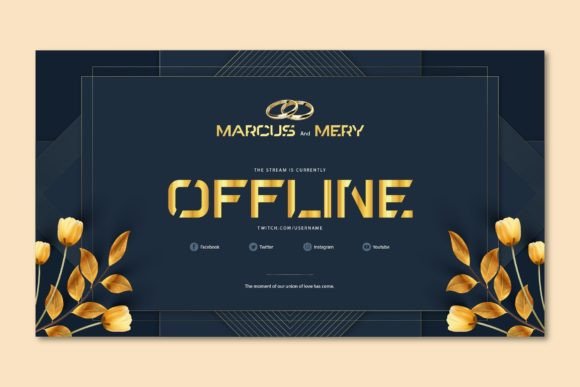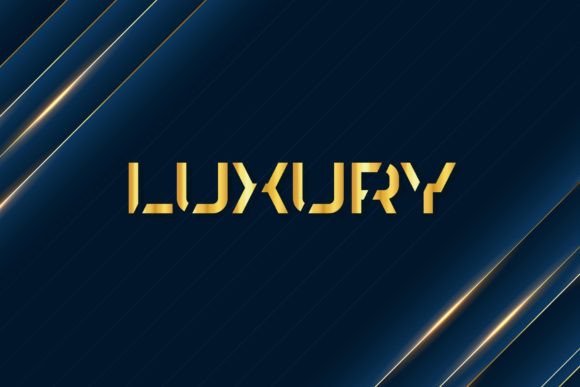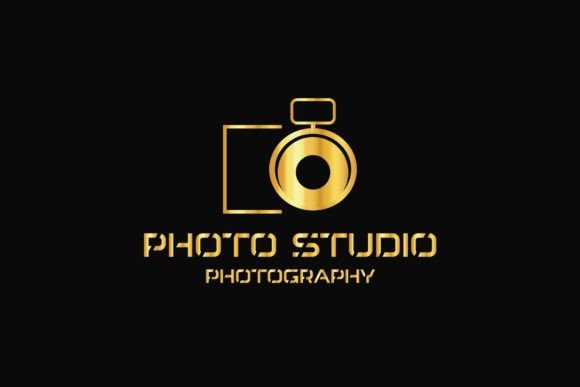
Unlock the Luxurious Look of Your Creative Projects with Smart Gold Font
Remember the excitement of scrolling through your social media feed and stumbling upon a stunning film poster that instantly grabs your attention? That’s the power of a well-designed font in action. For designers, finding the perfect font can be the key to elevating their creative projects from ordinary to extraordinary. That’s where the Smart Gold Font comes in – a high-quality, modern gold font that’s sure to add a touch of luxury to any design.
With its sleek and sophisticated design, the Smart Gold Font is the perfect addition to any creative project. Whether you’re working on a film poster, logo design, or even a block letter project, this beautiful font is sure to make your work stand out. And the best part? It’s a color font, compatible with popular design software like PhotoShop, Illustrator, and Inkscape, making it easy to integrate into your workflow.
Key Features of Smart Gold Font
- High-quality design for creative projects, ideal for logos, branding, and marketing materials.
- Comes with a transparent background, allowing for seamless integration into any design.
- Includes 6 styles, ranging from light to bold, to suit various design needs.
- Designed at a high resolution of 300 DPI, ensuring crisp and clear results when scaled up or down.
- Perfect for use in digital and print media, including websites, social media, business cards, and brochures.
Honest Review: Smart Gold Font
I recently had the chance to work with the Smart Gold Font for a creative project, and I was quite impressed. This font is definitely a great addition to any design resource library.
- High-quality design: The Smart Gold Font is crisp, clean, and has a beautiful shine to it.
- Transparent background: The transparent background of the font makes it easy to use in various design projects.
- ⚠️ Limited font sizes: While the font is great for small to medium-sized text, it can get a bit pixelated when used for larger font sizes.
- ⚠️ Not suitable for bold text: The font’s design makes it difficult to use for bold or italic text, which can limit its versatility.
Overall, I was impressed with the Smart Gold Font and would definitely recommend it for designers working on a creative project that requires a high-quality, stylish font. Just be aware of its limitations and use it accordingly.
How to Use Smart Gold Font
The Smart Gold Font is a high-quality design resource that can elevate your creative project. With its elegant and sophisticated style, it’s perfect for various design needs.
Tips for Getting the Most Out of Smart Gold Font
Use the Smart Gold Font in combination with other design elements to create a cohesive look. Experiment with different font sizes, colors, and styles to find the perfect balance.
The Smart Gold Font is perfect for creating elegant and sophisticated designs for various occasions, including weddings, corporate events, and product launches.